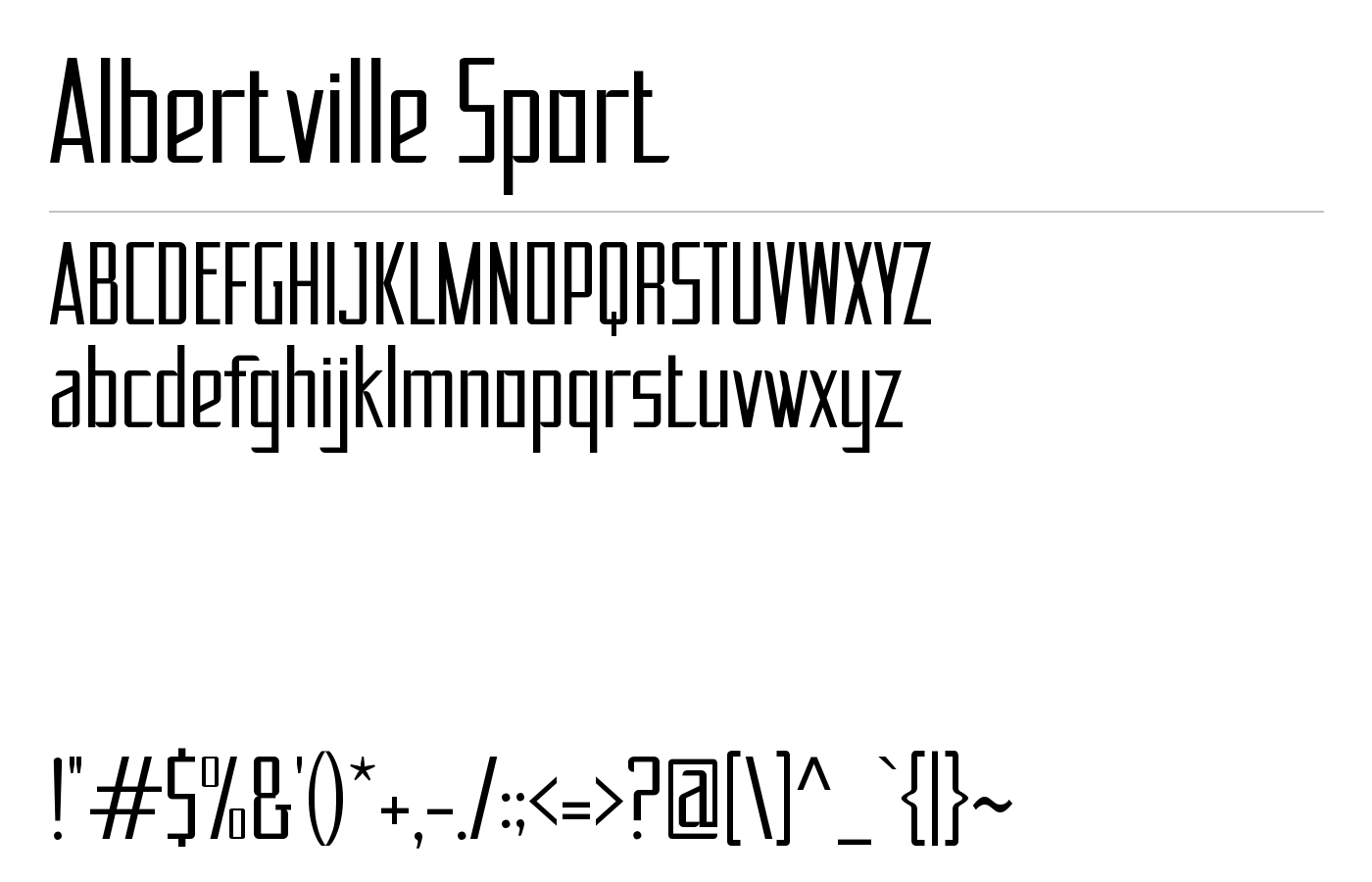
Albertville Sport is a narrow, tall sans serif font with a modern and sporty vibe. Its clean, geometric lines and consistent stroke weight give it a sleek and dynamic feel, making it ideal for athletic branding, headlines, and logos where a sharp, energetic look is desired. The font’s condensed form and straightforward letter shapes ensure strong readability while conveying a sense of speed and precision.
Albertville Sport Font
About Albertville Sport Font